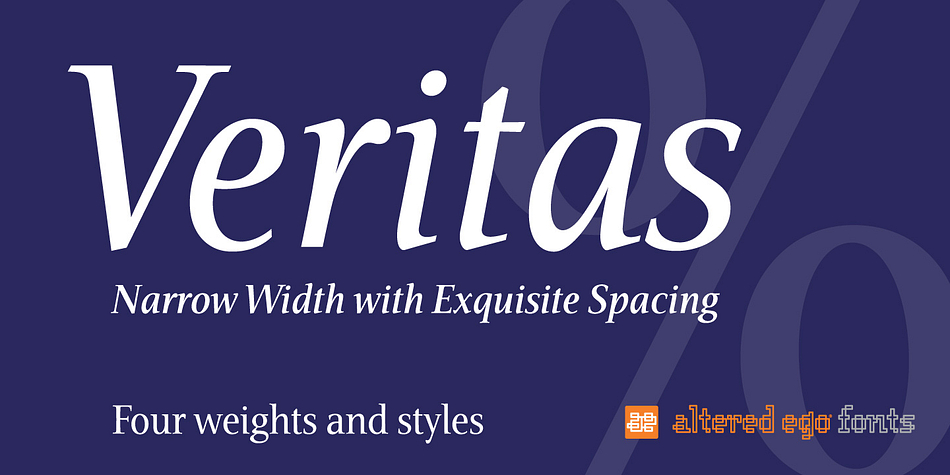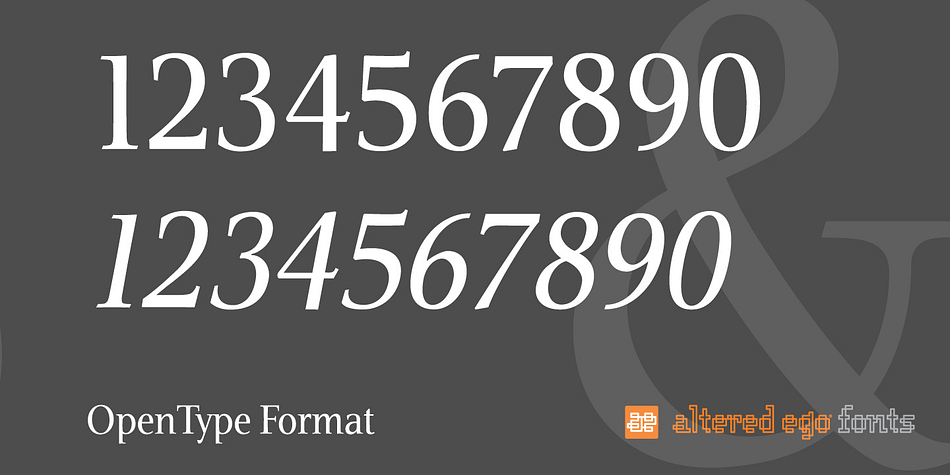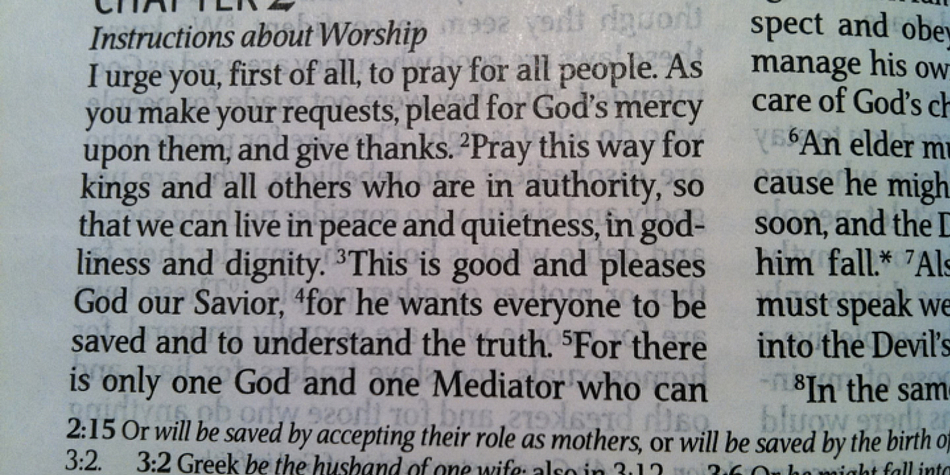
Designed by Brian Sooy, Veritas AE is a serif font family. This typeface has eight styles and was published by Altered Ego Fonts.
Veritas™ AE is a narrow width text typeface family—the answer to “too much copy, not enough space.”
Veritas™ is a four-weight narrow-width text typeface family with a taller x-height than Times Roman for added legibility but maintains a similar character count in text. It features exquisite spacing, an incredible economy of space, and enhanced readability. It is beautifully kerned, even in the number set, to allow for flawless legibility in text settings.
Veritas was designed for text situations where space is at a premium and columns are narrow, yet where readability and a larger point size are necessary. That means is you can fit more text in less space!
This typeface is a top choice for publishers like Tyndale Publishing, Square Halo Books, Crossway Publishing, Liddell Press, and more. Veritas AE makes publications and Bibles easier to read, and corporate identity programs distinctive.